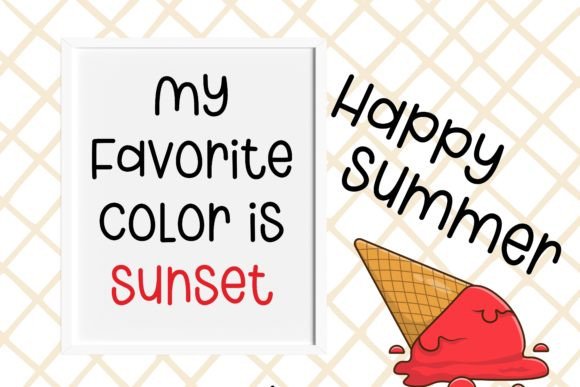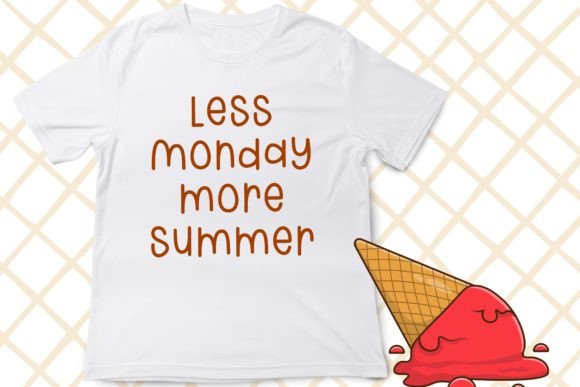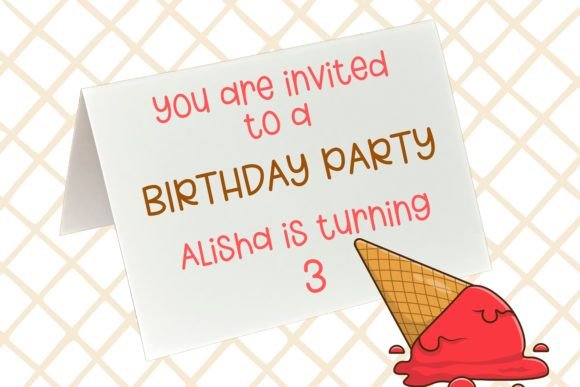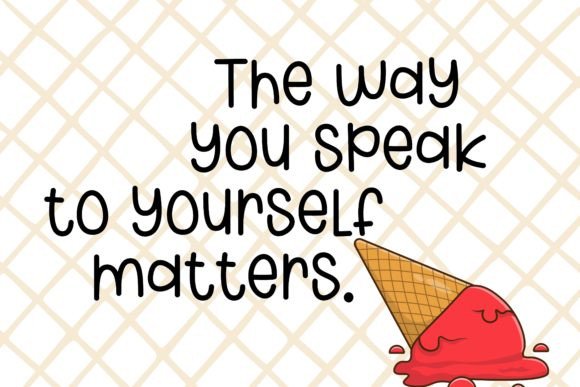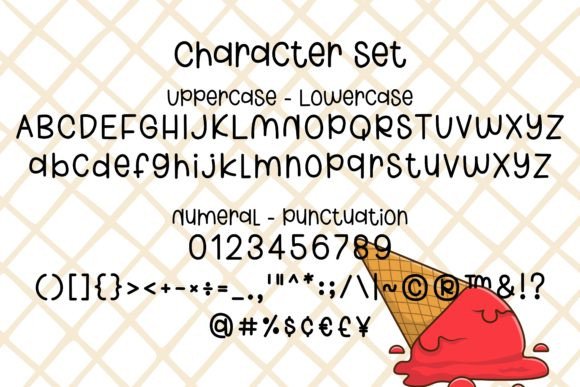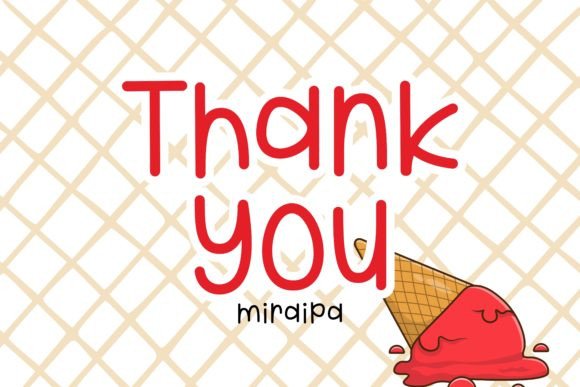
Introduction to Raspberry Ice Cream Font
We’ve all been there – staring at a blank page, trying to come up with the perfect idea for a creative project. The cursor blinks, the ideas are scarce, and we’re left wondering what to do next. But then, it hits us – a burst of inspiration that changes everything. For designers, this moment is often sparked by the discovery of a unique and captivating font. And that’s exactly what we’re excited to introduce to you today: the Raspberry Ice Cream Font.
This charming handwritten sans-serif font is more than just a pretty face – it’s a valuable design resource that can elevate any project. With its playful and whimsical feel, it’s perfect for adding a touch of personality to headlines, social media graphics, and invitations. And the best part? It’s available for free download, complete with a high-quality transparent background that makes it easy to work with.
Key Features of Raspberry Ice Cream Font
- High-Quality Design Resource: The Raspberry Ice Cream Font is a unique and stylish design resource ideal for creative projects.
- Large Character Set: This font includes a large character set, including uppercase and lowercase letters, numbers, and punctuation marks.
- Perfect for Creative Projects: The Raspberry Ice Cream Font is a perfect addition to any creative project, from branding and marketing materials to digital art and graphic design.
Honest Review: Raspberry Ice Cream Font
I recently stumbled upon the Raspberry Ice Cream Font while searching for a free download to enhance my creative project. The first thing that caught my eye was its unique, playful design, making it perfect for adding a touch of whimsy to any project.
- ✨ Unique and playful design that’s perfect for creative projects.
- ✨ High-quality font that’s suitable for both digital and print use.
- ⚠️ Limited character set, which may not be ideal for longer text-based projects.
- ⚠️ Not suitable for formal or professional use due to its playful nature.
Overall, I’m impressed with the Raspberry Ice Cream Font, and I can see it being a great addition to any design resource. While it may not be perfect for every project, its unique design and high-quality make it a valuable asset for designers looking to add some personality to their work.
Raspberry Ice Cream Font
The Raspberry Ice Cream Font is a high-quality design resource perfect for any creative project. This free download offers a unique and playful touch to your designs.
The Raspberry Ice Cream Font is perfect for designs that require a playful and whimsical touch. It’s great for use in logos, social media graphics, and other visual content.
To get the most out of the Raspberry Ice Cream Font, be sure to use it on a transparent background to really make it pop. You can also pair it with other playful fonts and graphics to create a fun and eye-catching design.